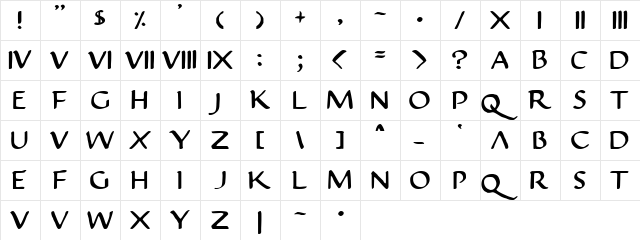
Justinian Regular
Design Context for Justinian Typeface
Justinian is a composed and adaptable typeface that performs quietly and consistently across a wide range of design contexts.